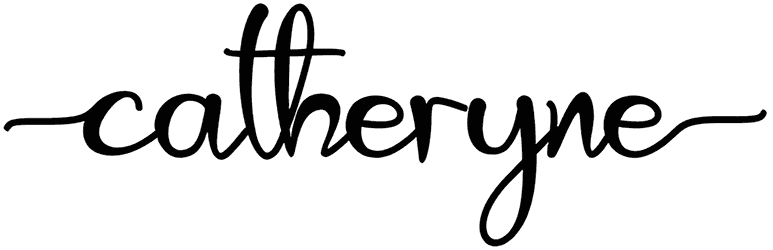
Catheryne Font
Designed byVincentius Kriswandono
Catheryne is a new member of RB’s signature style, featuring a great mix of fittings, embellishments, and hand lettering. By adding this handwritten font, you can ensure that your designs are full of personality and create a desired personal touch.
With this romantic font, you will no longer have limits for designing love letters, wedding cards, and classical music album covers, and you can let your imagination fly.